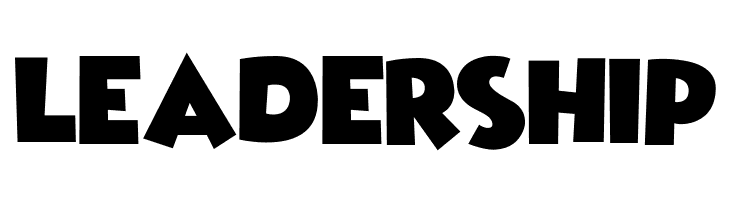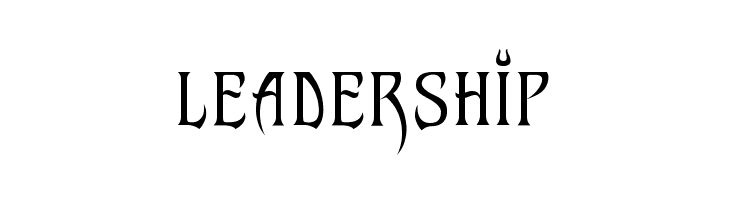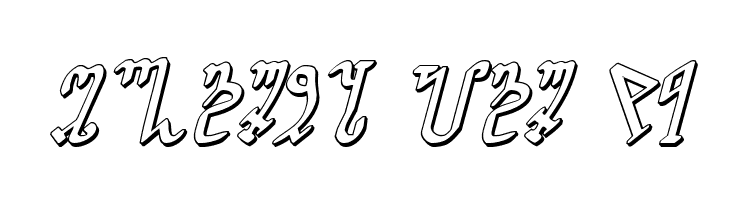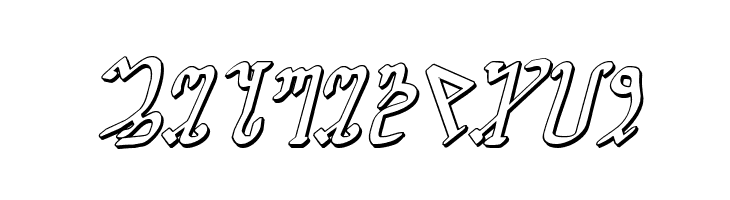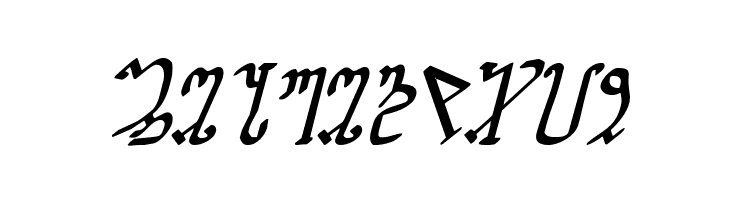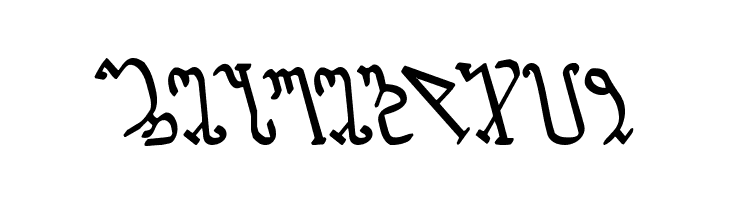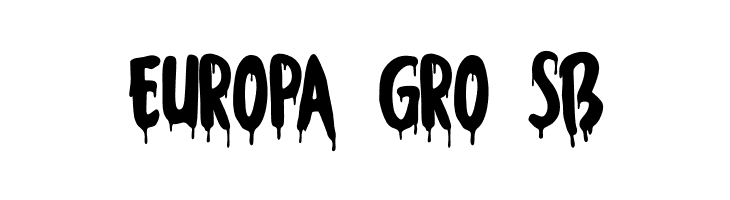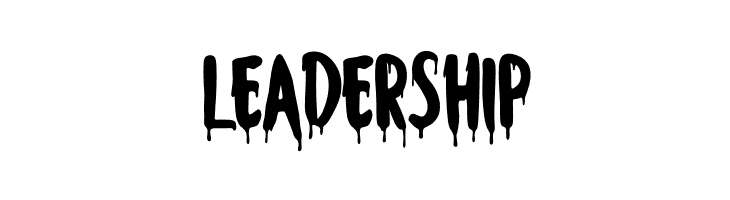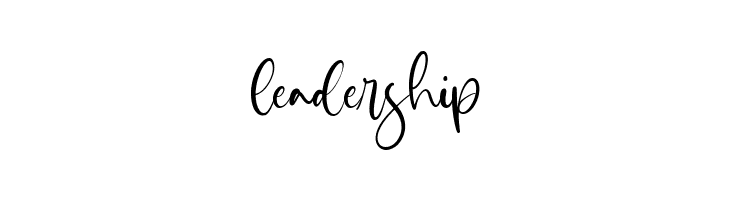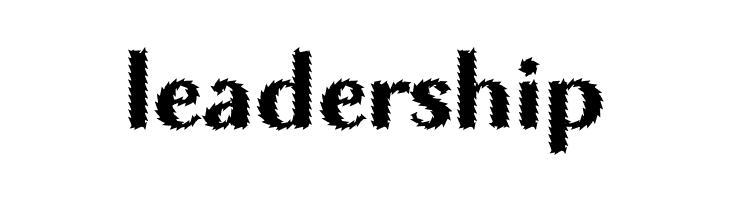
A mystical, 3D italic font with bold, angular lines and a magical aesthetic.
A mystical, angular font with a handwritten, magical script style.
A bold, mystical font with angular, rune-like characters and a leftward slant.
Bold, playful decorative font with heart and pattern motifs.
A bold, brush-like font with an expressive, hand-painted style.
A bold, geometric font with a modern and edgy design.
A whimsical, hand-drawn font with elongated, irregular strokes and a playful, edgy vibe.
A whimsical, cursive font with flowing, artistic strokes.
A bold, distressed font with a gritty, vintage texture.
A jagged, thorn-like font perfect for Halloween themes.
A bold, playful font with a whimsical, cartoonish style.
A bold, gothic-inspired font with sharp, angular lines and exaggerated serifs.
A bold, geometric font with sharp angles and a modern aesthetic.
A bold, playful font with a spooky twist, featuring dynamic strokes and quirky characters.
A bold, distressed font with a grunge aesthetic and irregular shapes.
A dual-style font with bold geometric and thin minimalist uppercase letters.
A bold, dripping font perfect for eerie and spooky designs.
A bold, hand-drawn font with a rugged and distressed appearance.
An elegant and vintage-inspired font with tall, slightly condensed uppercase letters and rounded lowercase characters.
A bold, edgy font with jagged strokes and a rebellious style.
A bold, playful font with irregular shapes and a whimsical, cartoonish style.
A gothic-inspired serif font with sharp, angular features.
A bold, retro-inspired font with dynamic strokes and angular serifs.
A bold, decorative font with a woven, grid-like design.
A bold, 3D font with jagged edges and a playful, dynamic style.
A bold, 3D italic font with sharp, angular edges and a dynamic style.
A bold, 3D font with sharp angles and a rugged, edgy style.
A bold, jagged, and condensed font with sharp edges for dramatic impact.
A bold, condensed, and italic font with sharp, angular edges and high contrast.
A bold, jagged, and aggressive decorative font with sharp edges.
A bold, dynamic, and italic decorative font with sharp, angular edges.
A bold, italicized font with sharp, angular edges and a distressed look.
A bold, jagged font with sharp, angular cuts and an edgy appearance.